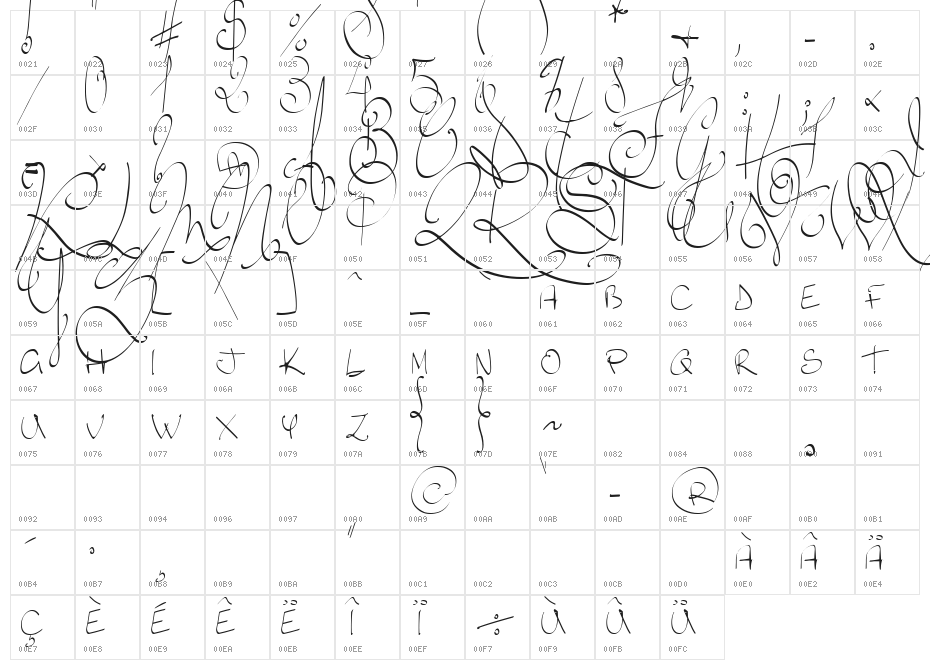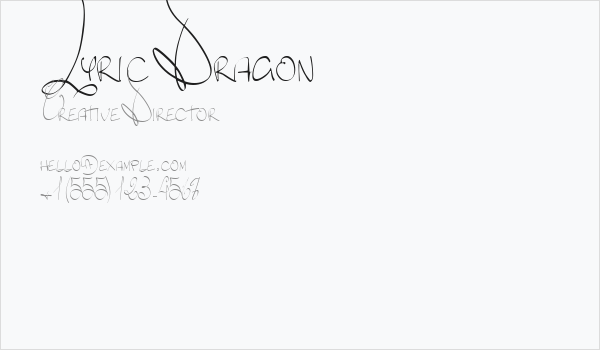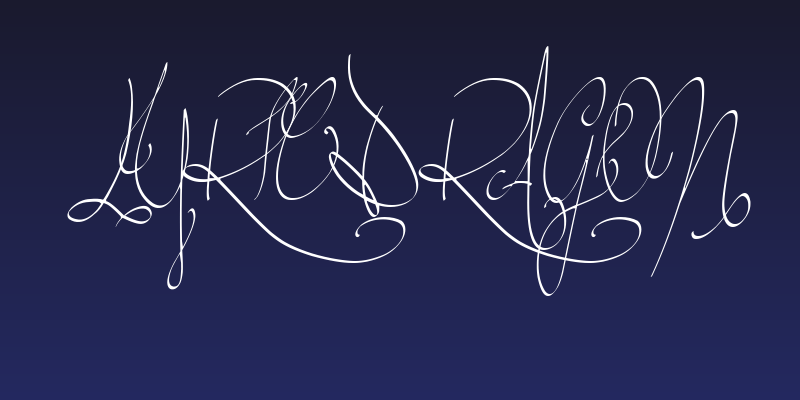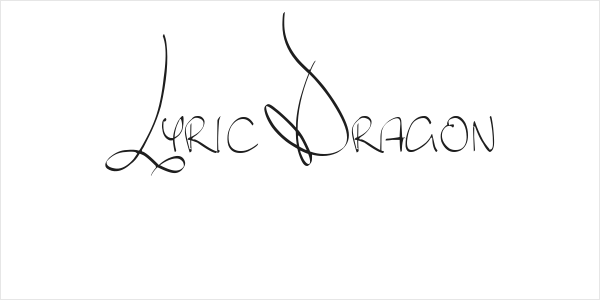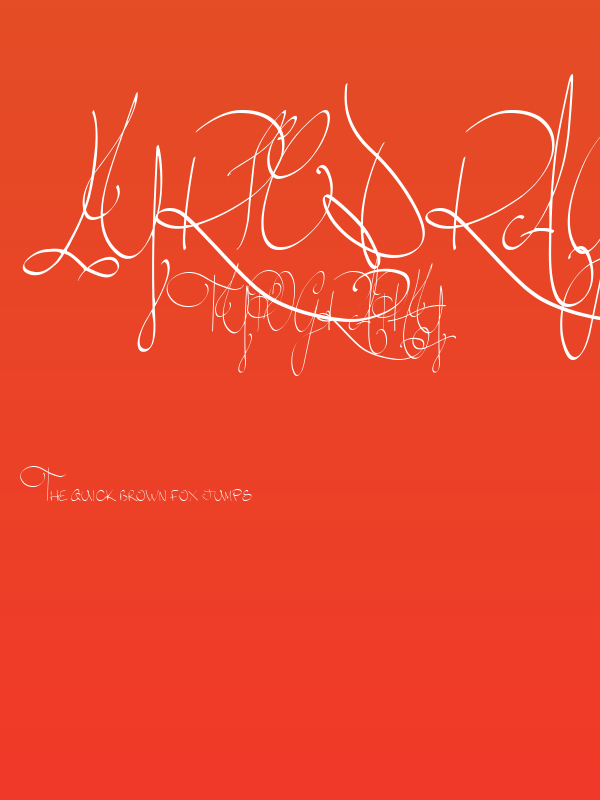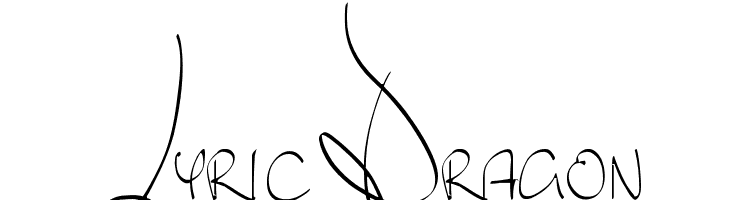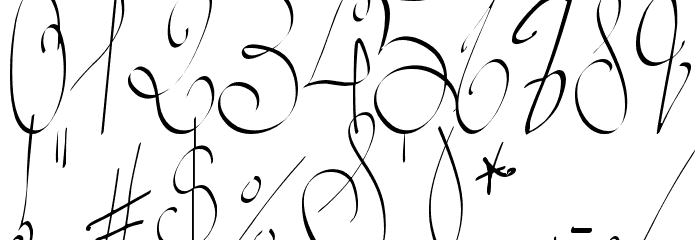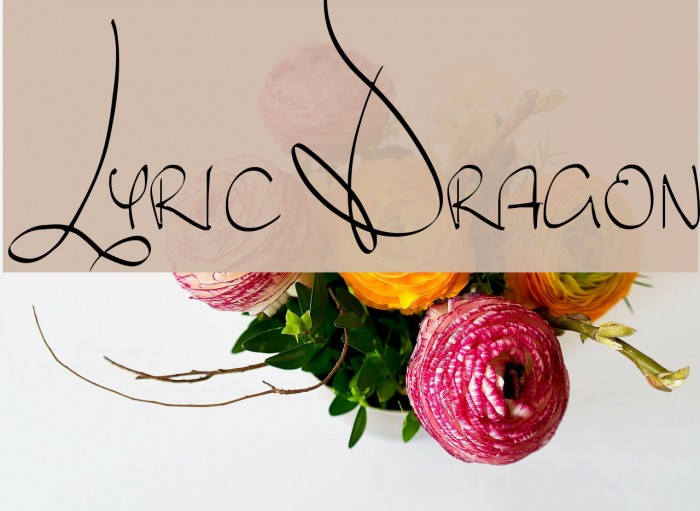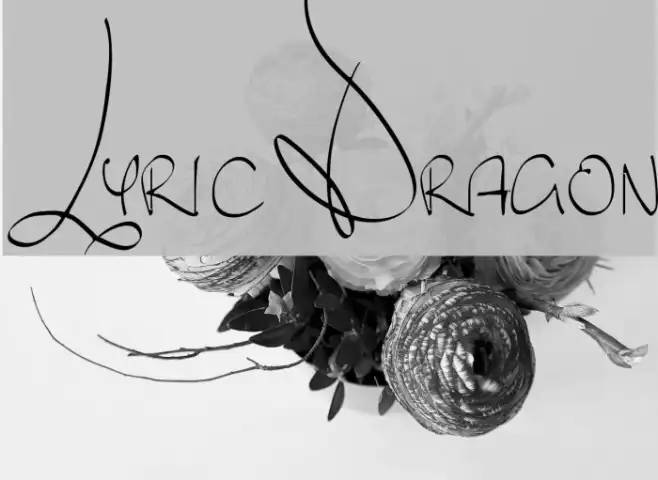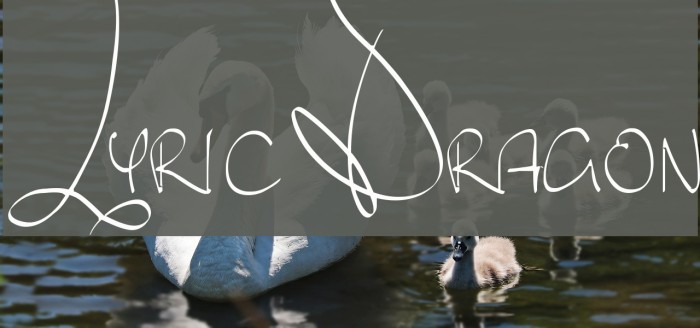
Lyric Dragon Font
Lyric Dragon Description
This font features an intricate and artistic design with a highly decorative and calligraphic style. The uppercase letters are characterized by elaborate swirls and loops, creating a sense of elegance and sophistication. The lowercase letters maintain a similar aesthetic, with fluid strokes and a graceful flow. The numerals and special characters are equally ornate, adding to the overall cohesive look. This font is ideal for projects that require a touch of luxury and creativity, such as invitations, branding, and artistic designs. Its unique style makes it stand out, offering a visually striking appearance that captures attention.
| Use Case | Logos, Invitations, Artistic Designs |
| Proposed Projects | Ideal for invitations, branding, artistic designs, and luxury-themed projects. |